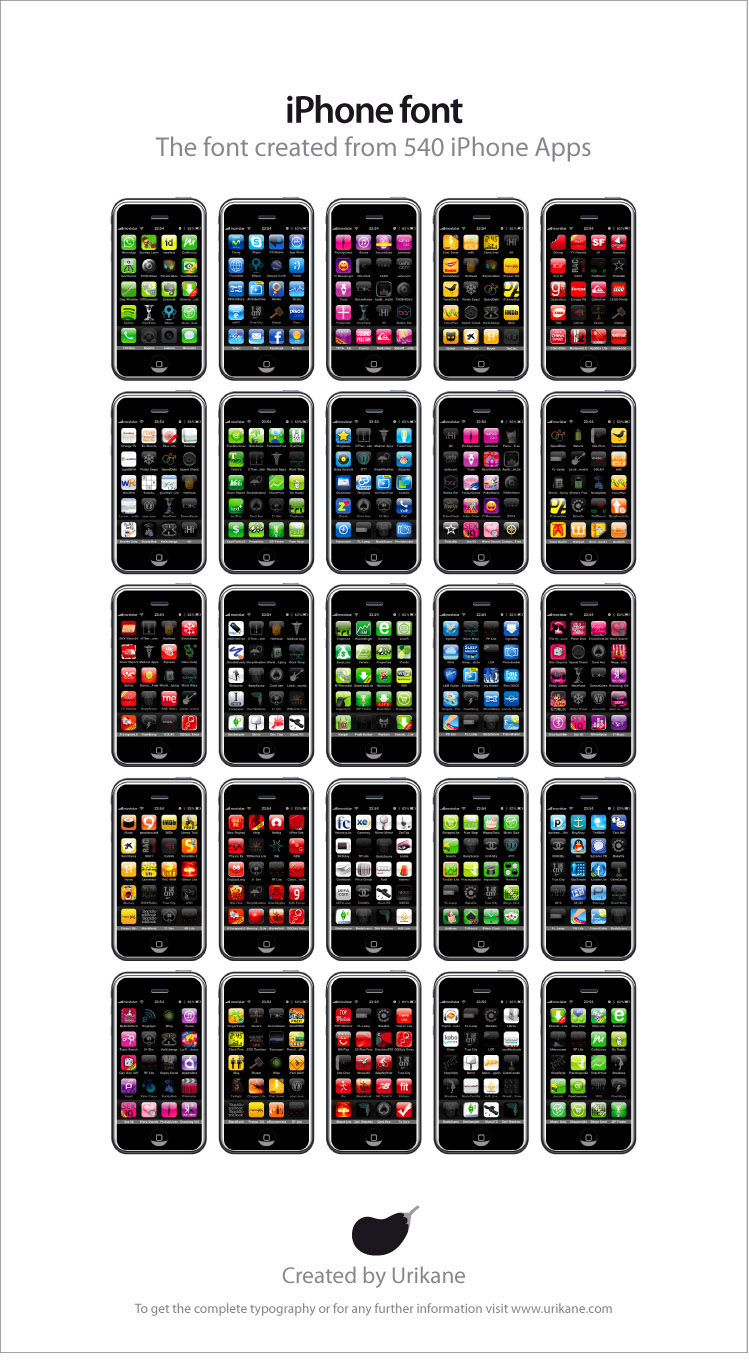
iPhone Font Created From 540 App Icons [Video]
Urikane has created a font using 540 different iPhone application icons.
iPhone Font Created From 540 App Icons [Video]
...too much free time....u need the 5x5 grid to make some letters work, B, M, Q, V. Still, nice job!
Who needs the letter W anyway...
And the letter M. It's like an "opps I have to include it" letter that doesn't work in a 4x4 grid